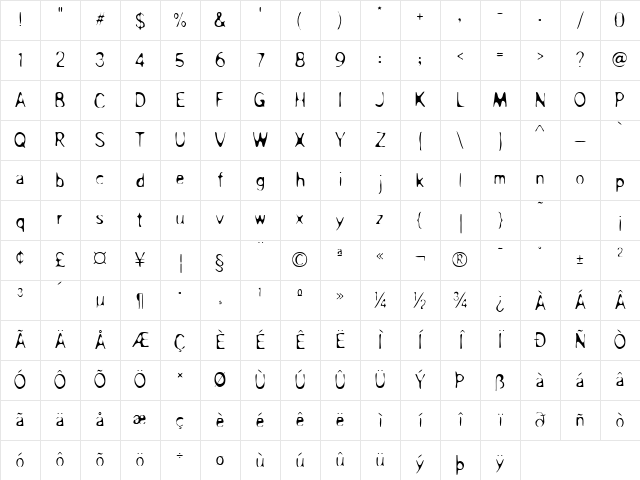
OverprintICG Light
Design Context for OverprintICG
OverprintICG is a composed and adaptable typeface that performs quietly and consistently across a wide range of design contexts. Its slender proportions lend an understated elegance to any composition.